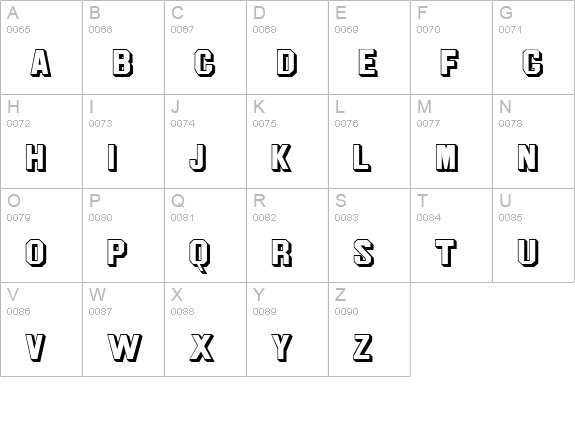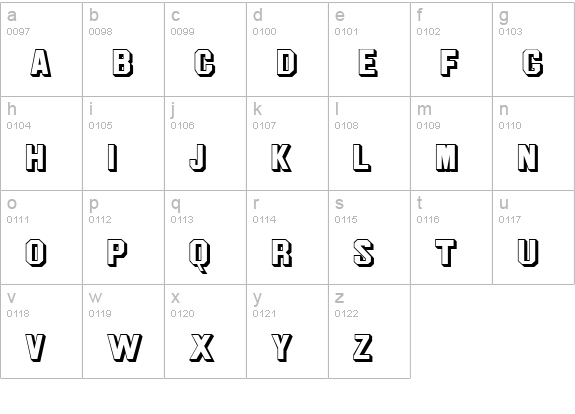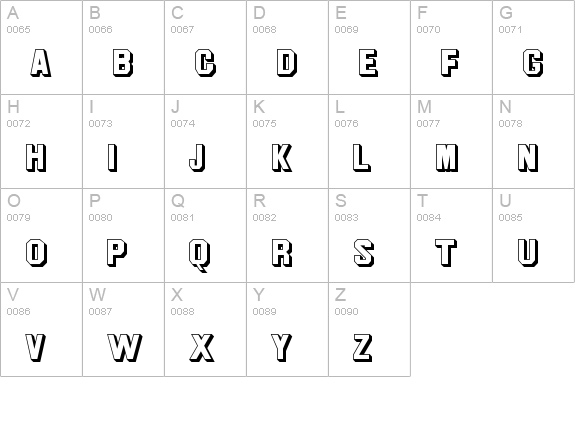
Jim DandyHollow Font Details
Jim Dandy Hollow font is a unique and eye-catching typeface that exudes a sense of whimsy and playfulness. Its hollow design gives it a fun and lighthearted appearance, making it perfect for projects that require a touch of creativity and charm. Whether you're working on a poster, invitation, or logo design, Jim Dandy Hollow font is sure to make your text stand out. Best of all, Jim Dandy Hollow font is completely free to download at FontsMarket.com. This means you can add this delightful font to your collection without having to spend a dime. So why wait? Download Jim Dandy Hollow font today and let your creativity shine!